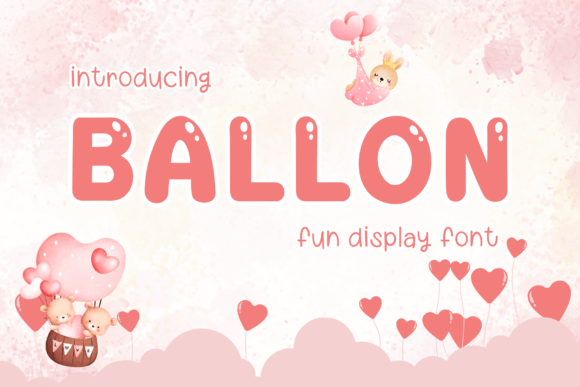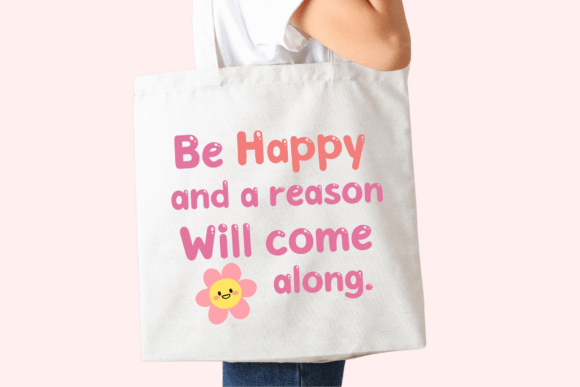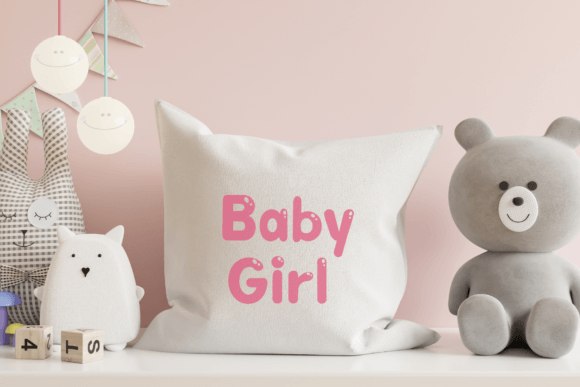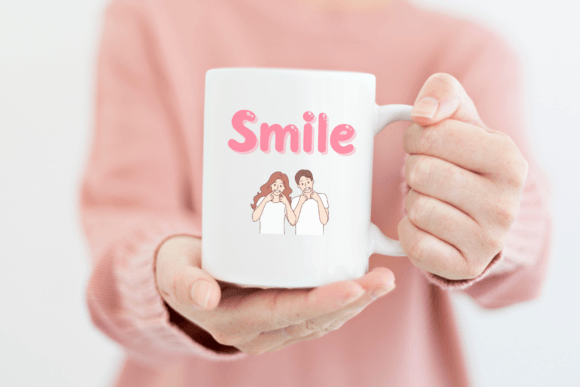
Ballon Font: Cute Display Font for DIY Crafts & Playful Designs
About the Ballon Font
Unleash your creativity with Ballon Font, a versatile font perfect for a wide range of applications. Balloons is a bold, fun font that looks great in greeting cards, posters, or craft and cutting projects.
Its playful, rounded forms make it ideal for children’s books, branding for playful companies, or eye-catching headlines. However, its bold weight and relatively large x-height make it less suitable for body text or UI elements where readability at smaller sizes is crucial. Extended use could lead to visual fatigue.
Ballon pairs well with clean sans-serif fonts like Open Sans for a balanced contrast, or a more delicate script font like Great Vibes for a whimsical feel. For a modern approach, consider pairing it with a geometric sans-serif such as Futura.
The overall personality is cheerful and friendly, conveying a sense of lightheartedness and approachability. It’s best suited to projects that require a bold and memorable visual impact.